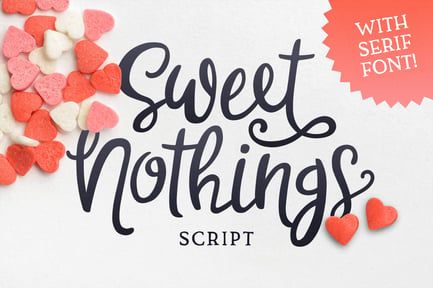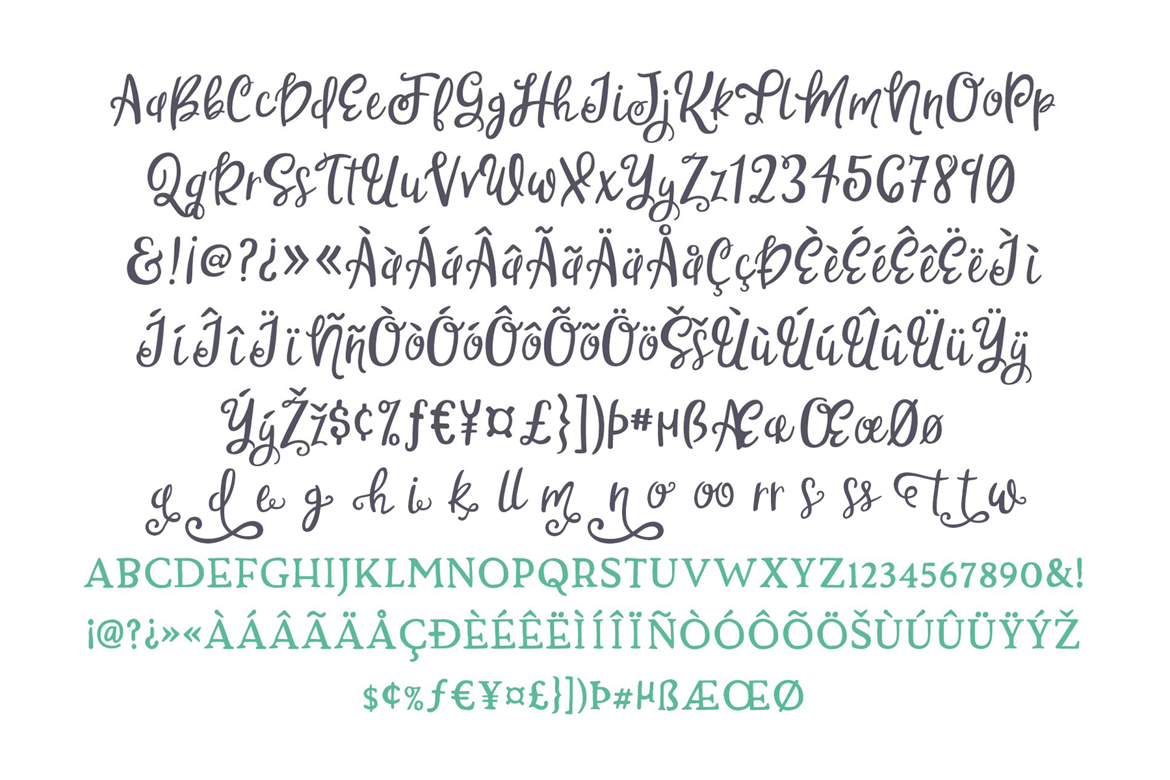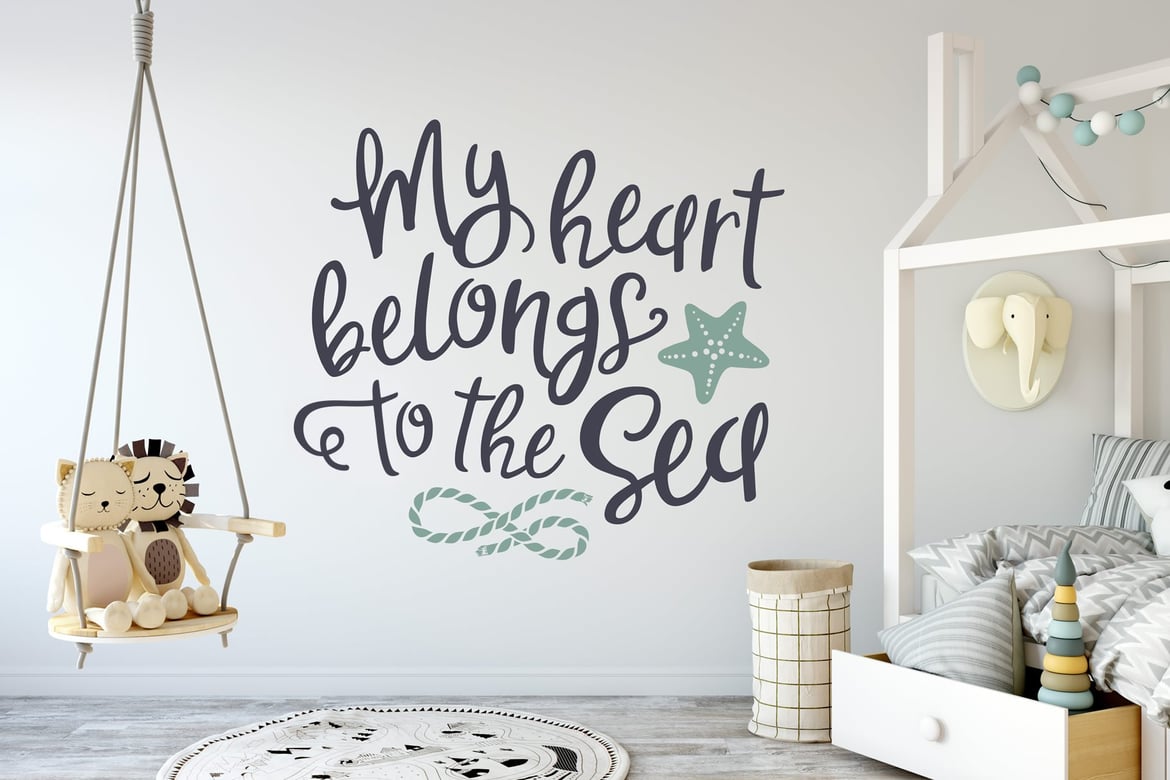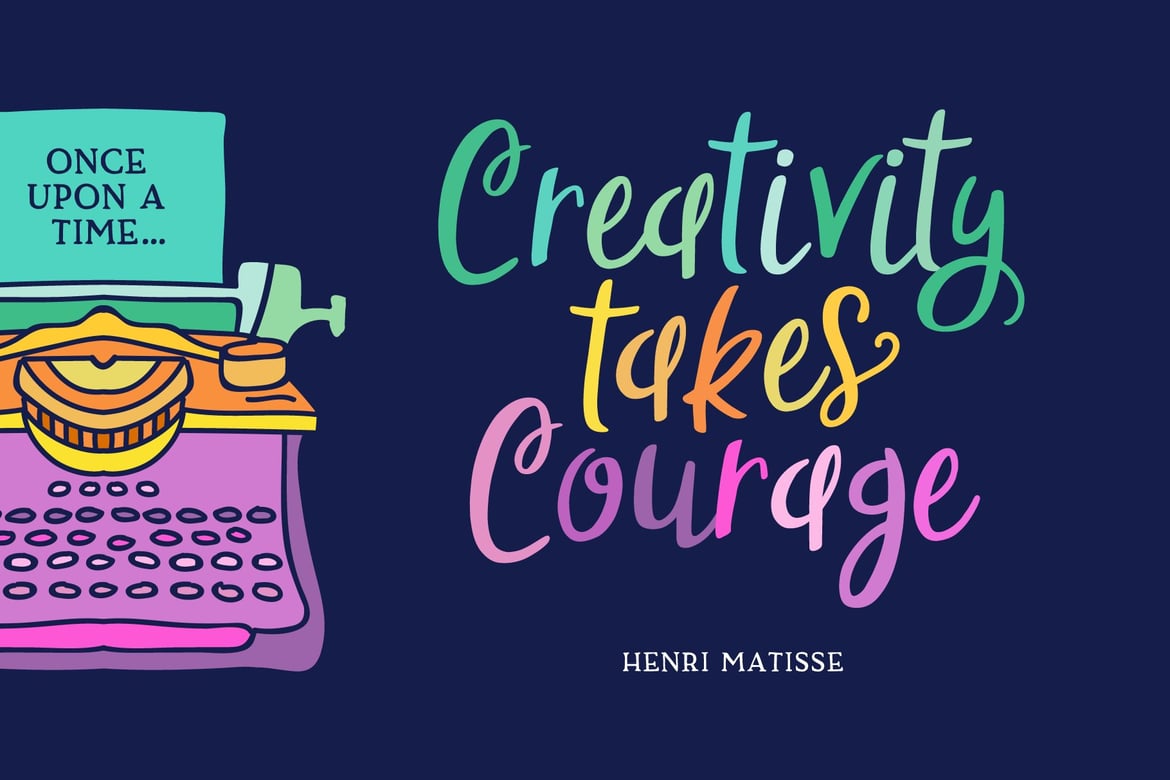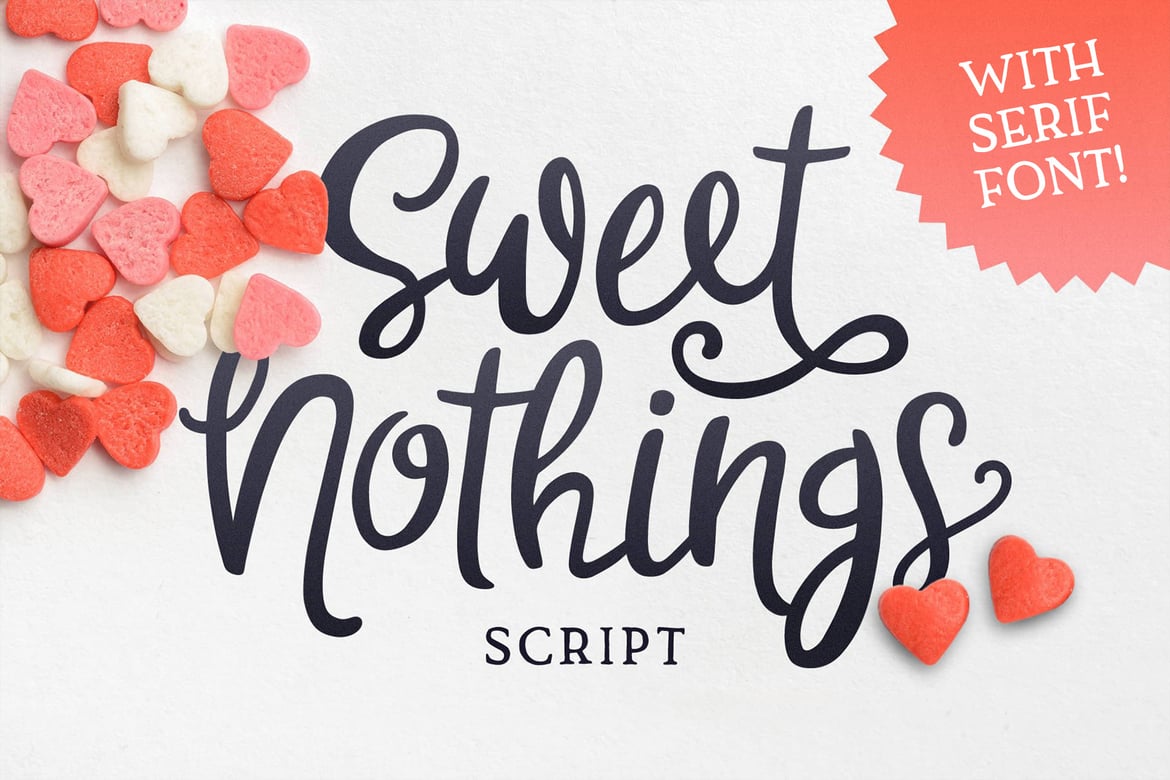
Sweet Nothings Font
Sweet Nothings is a romantic script that lives in that space between fancy and casual. Dress it up, or dress it down, it’s always a perfect fit. Comes with a coordinating serif font to make font pairing a breeze.